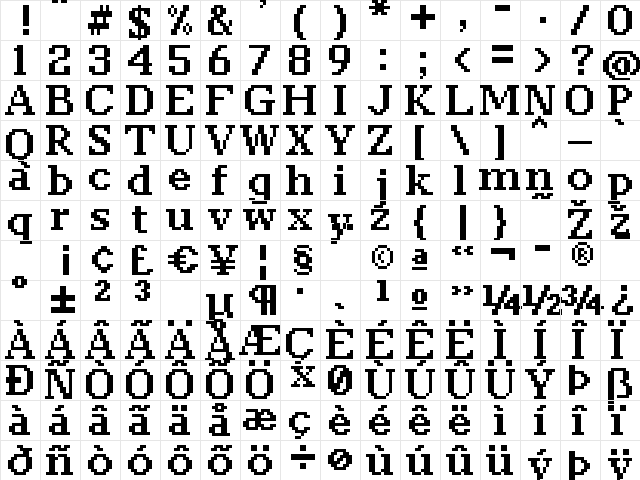
classic 10_65 Regular
Design Context for classic 10_65 Typeface
classic 10_65 has the warm character of retro typography — evoking diners, record sleeves, and the golden age of print advertising.
Font Pairing: Combine classic 10_65 with a simple slab or neutral sans — period-accurate companions reinforce the vintage feel without competing for attention.
Pro Tip: Use classic 10_65 for headlines and pull quotes rather than body copy — its personality is best appreciated in short, focused bursts.